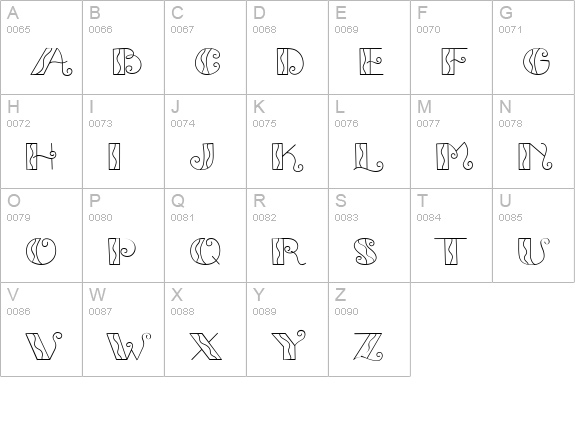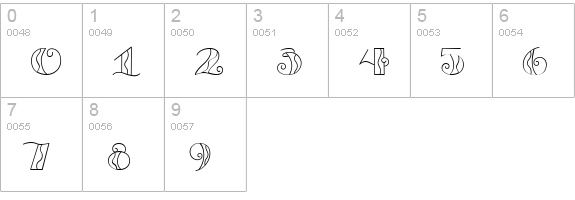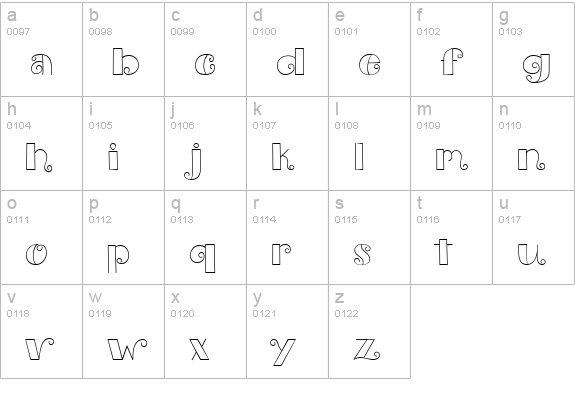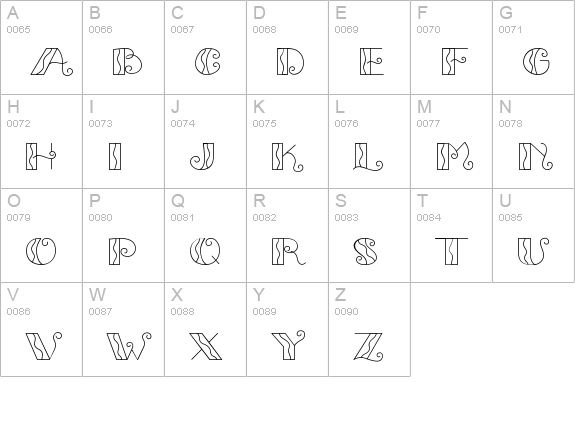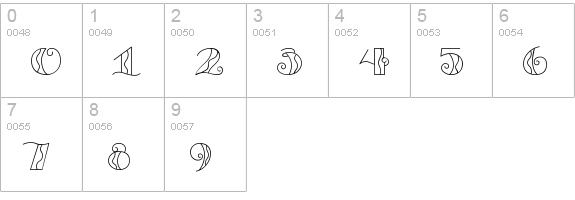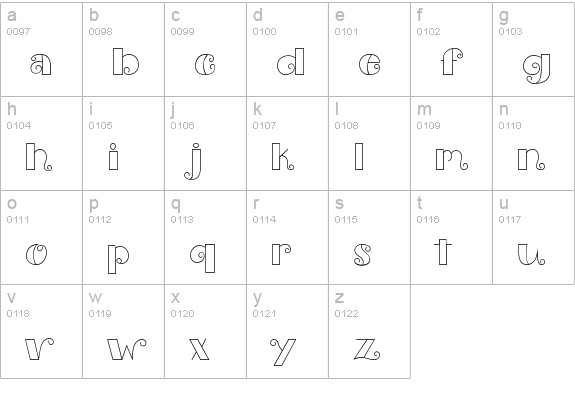
CK Contemporary Capitals Font Details
CK Contemporary Capitals font is a stylish and modern typeface that effortlessly combines elegance with a touch of sophistication. With its clean lines and sleek design, this font is perfect for adding a contemporary flair to any project. The uppercase letters are bold and eye-catching, making a statement wherever they are used. This versatile font is suitable for a wide range of design projects, from logos and branding to invitations and posters. Its timeless appeal and versatility make it a must-have in any designer's toolkit. Best of all, CK Contemporary Capitals font is available for free download at FontsMarket.com. Whether you're a seasoned designer or just starting out, this font is sure to elevate your designs and make a lasting impression. Download it today and add a touch of modern elegance to your projects.